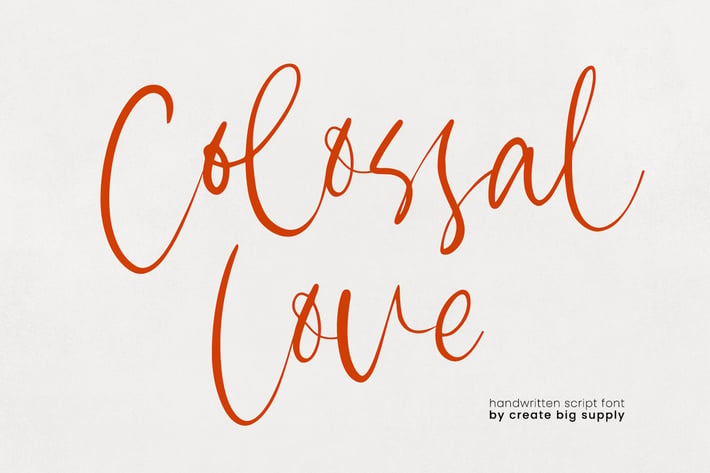
Colossal Love Chic Handwritten Signature Script
Colossal Love is a chic handwritten signature script font designed to elevate modern branding and personal design projects. With its smooth strokes and stylish curves, it’s ideal for logos, packaging, elegant stationery, and social media content.
This font delivers a professional yet expressive feel—perfect for creatives, fashion brands, and beauty labels.
Key Features:
- Chic and trendy signature-style font
- Ideal for logos, fashion, and branding work
- Elegant strokes and effortless flow
- Perfect for stylish packaging and social visuals
- Uppercase & lowercase letters
- Numerals, punctuation, and symbols
- Multilingual support included
Colossal Love gives your message a stylish signature vibe—modern, memorable, and full of charm.